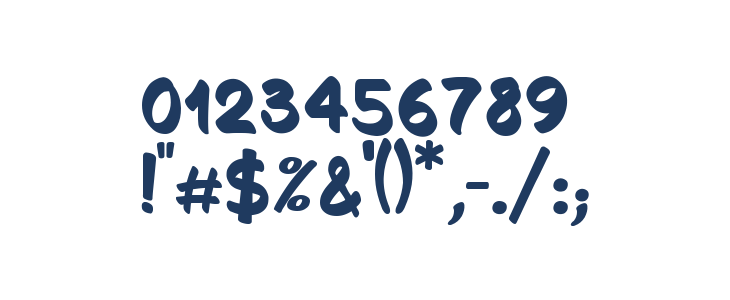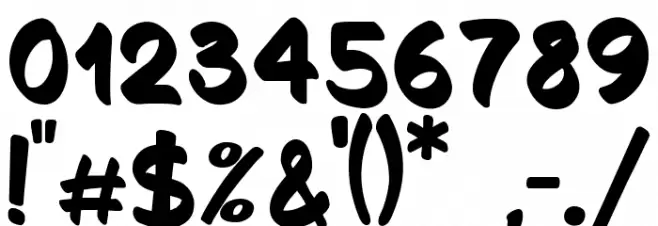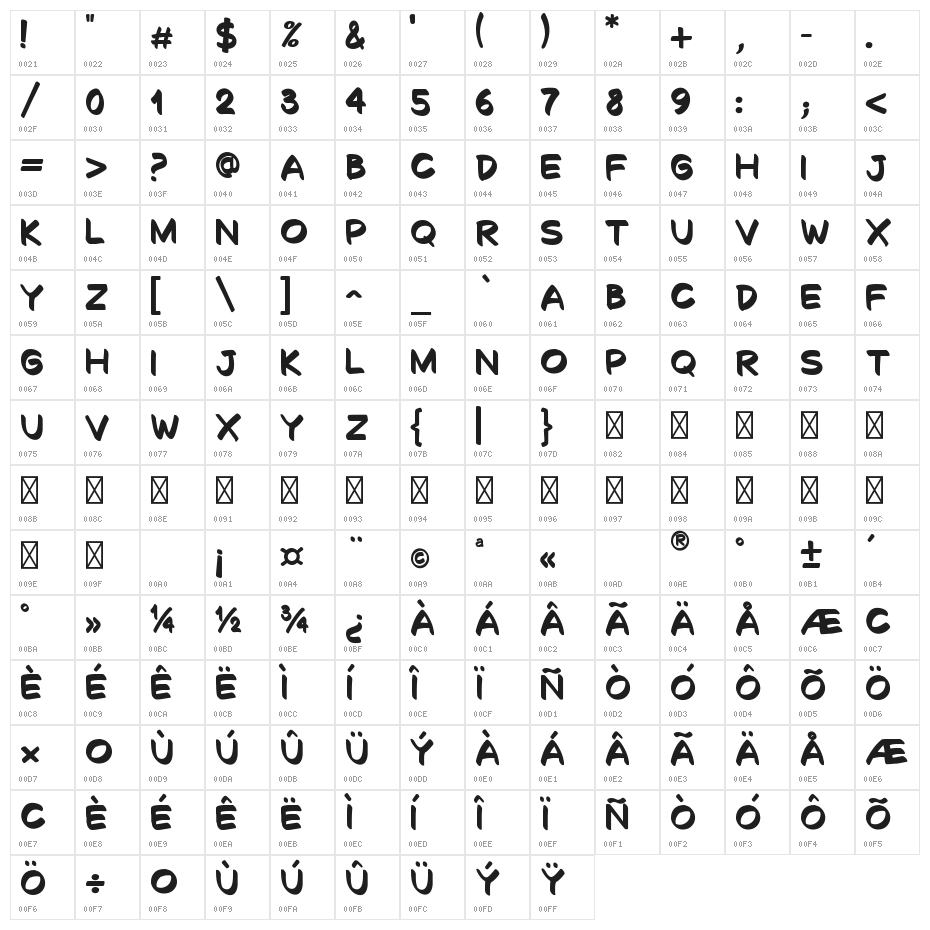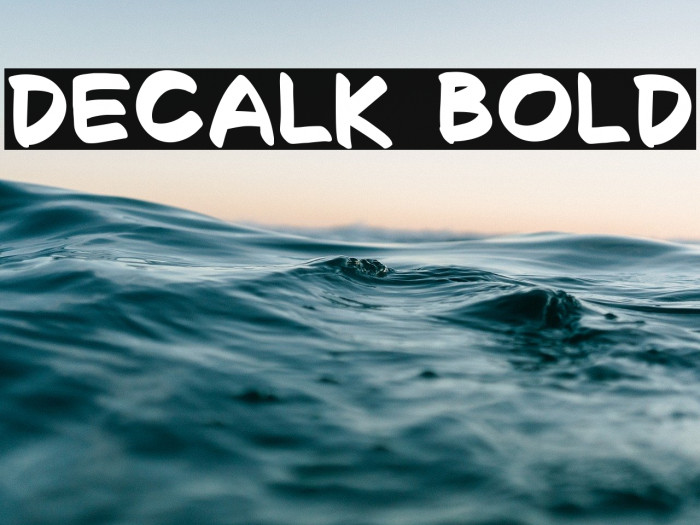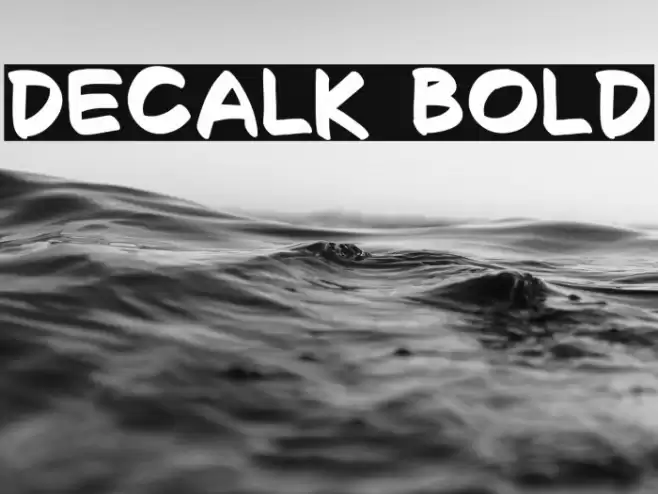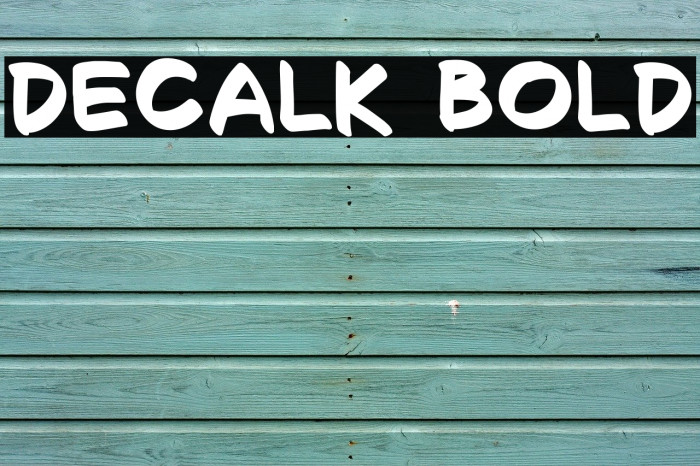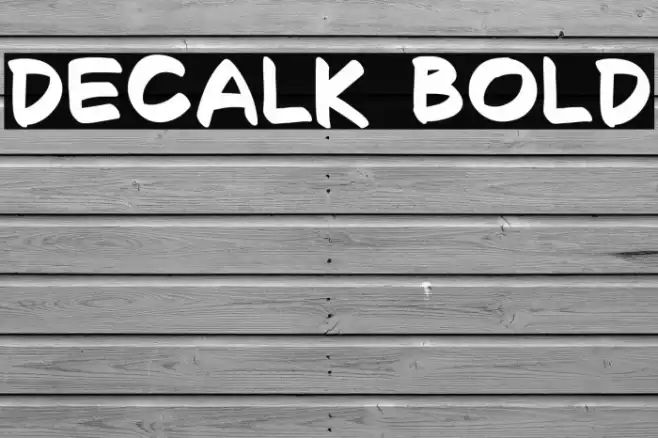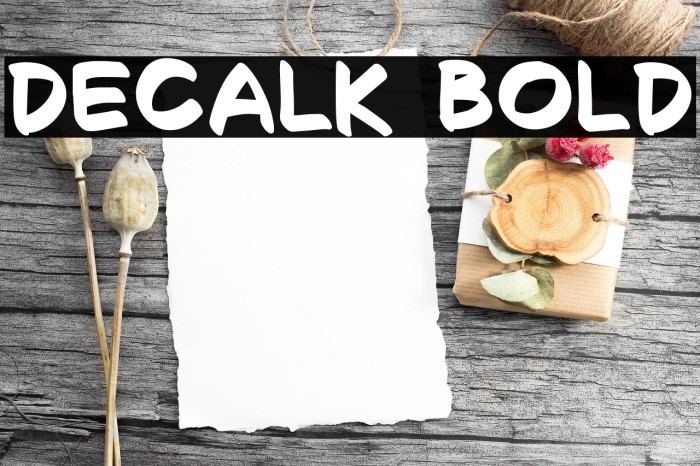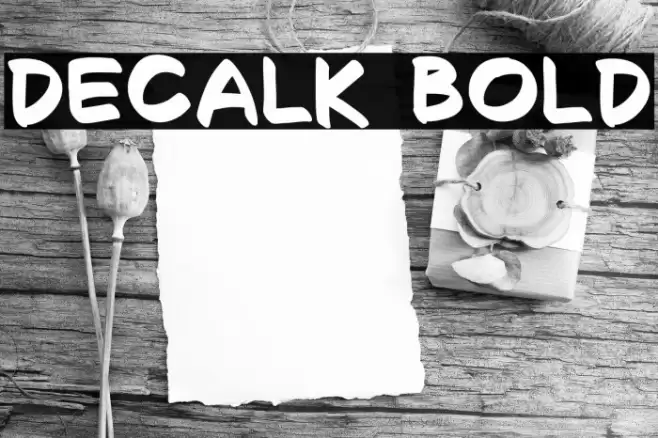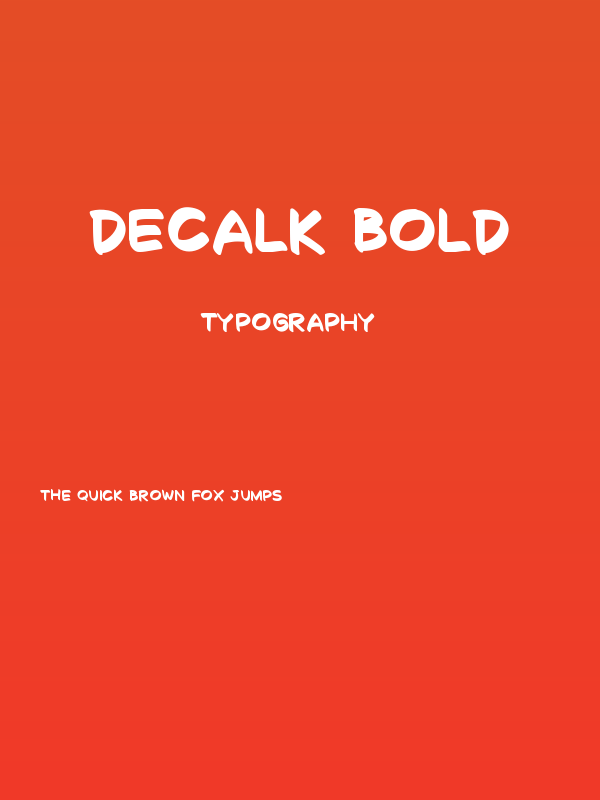
Decalk Bold Font
Decalk Bold Description
This font exhibits a playful and bold style, characterized by its thick, rounded strokes and a slightly irregular, hand-drawn appearance. The letters are bold and have a casual, informal feel, making them stand out with their unique, artistic flair. The uppercase and lowercase letters maintain a consistent weight, while the numbers and special characters follow the same design ethos, ensuring uniformity across the typeface. The overall look is dynamic and energetic, suitable for creative and fun projects.
| Overall Style | Playful, Artistic |
| Proposed Projects | Ideal for children's books, playful branding, posters, and creative design projects. |